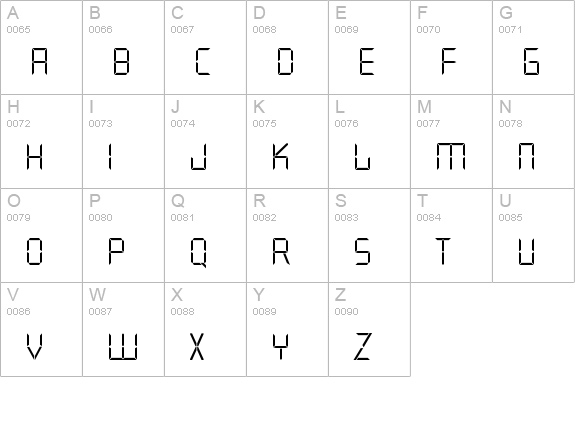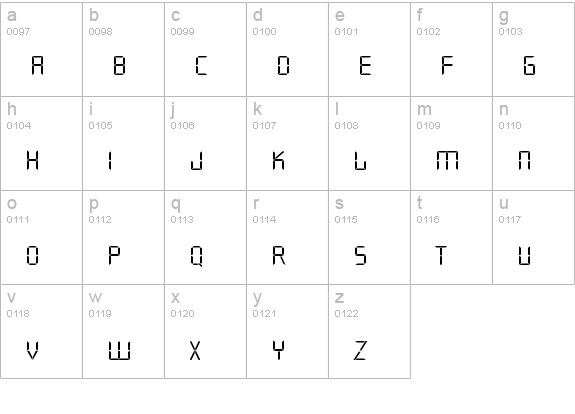
Quartz-Lgt Font Details
Quartz-Lgt is a versatile and elegant font that exudes a timeless appeal. With its clean lines and balanced proportions, this font is perfect for a wide range of design projects, from print materials to digital interfaces. Its sleek and modern aesthetic makes it ideal for branding, advertising, and editorial purposes. But what sets Quartz-Lgt apart is not just its aesthetic appeal, but also its accessibility. This font is available for free, allowing designers and creatives to access its beauty without any cost constraints. Whether you're a professional designer or a DIY enthusiast, Quartz-Lgt offers a high-quality typeface that won't break the bank. Downloading Quartz-Lgt is a breeze, thanks to its availability at FontsMarket.com. This reputable website provides a user-friendly platform where designers can easily find and download fonts that suit their needs. With just a few clicks, you can have Quartz-Lgt in your design arsenal, ready to elevate your projects to new heights. So, why wait? Embrace the elegance and functionality of Quartz-Lgt today and discover the endless possibilities it brings to your designs. With its free availability and easy download process at FontsMarket.com, this font is a must-have for any design enthusiast looking to make a statement. Don't miss out on this incredible opportunity to enhance your creative endeavors with Quartz-Lgt.